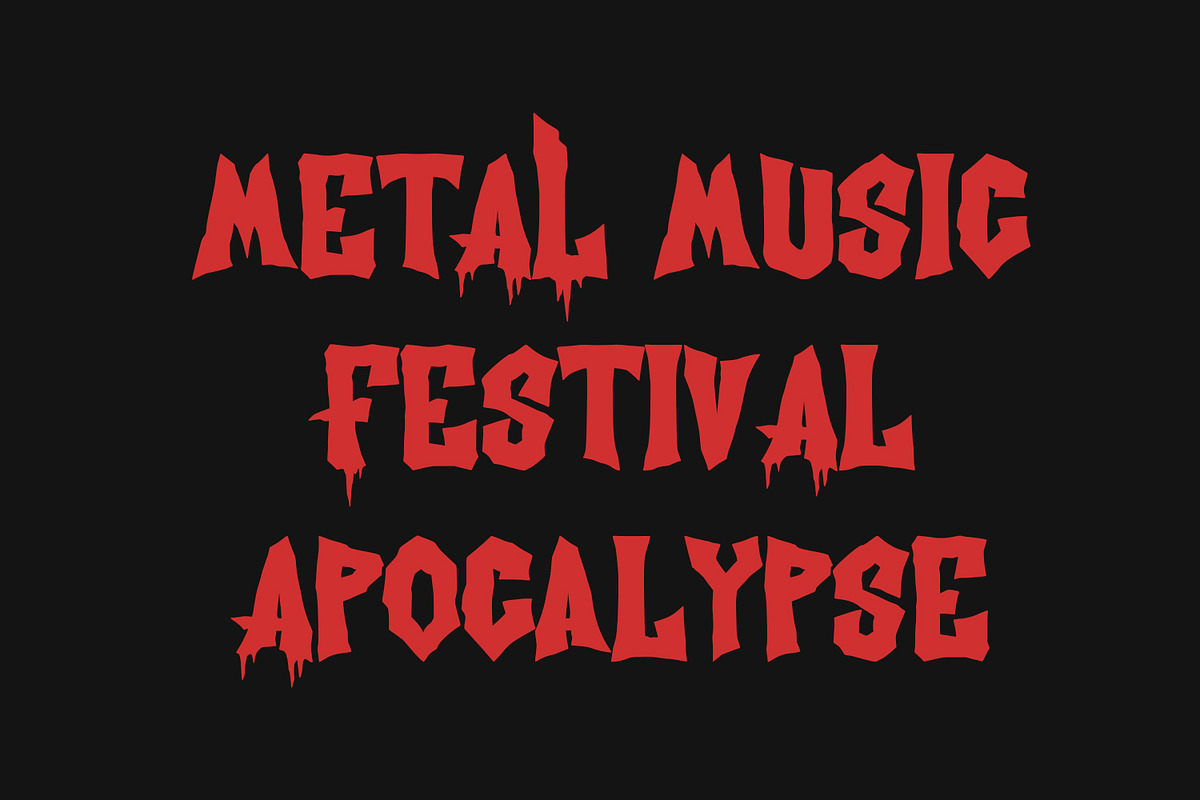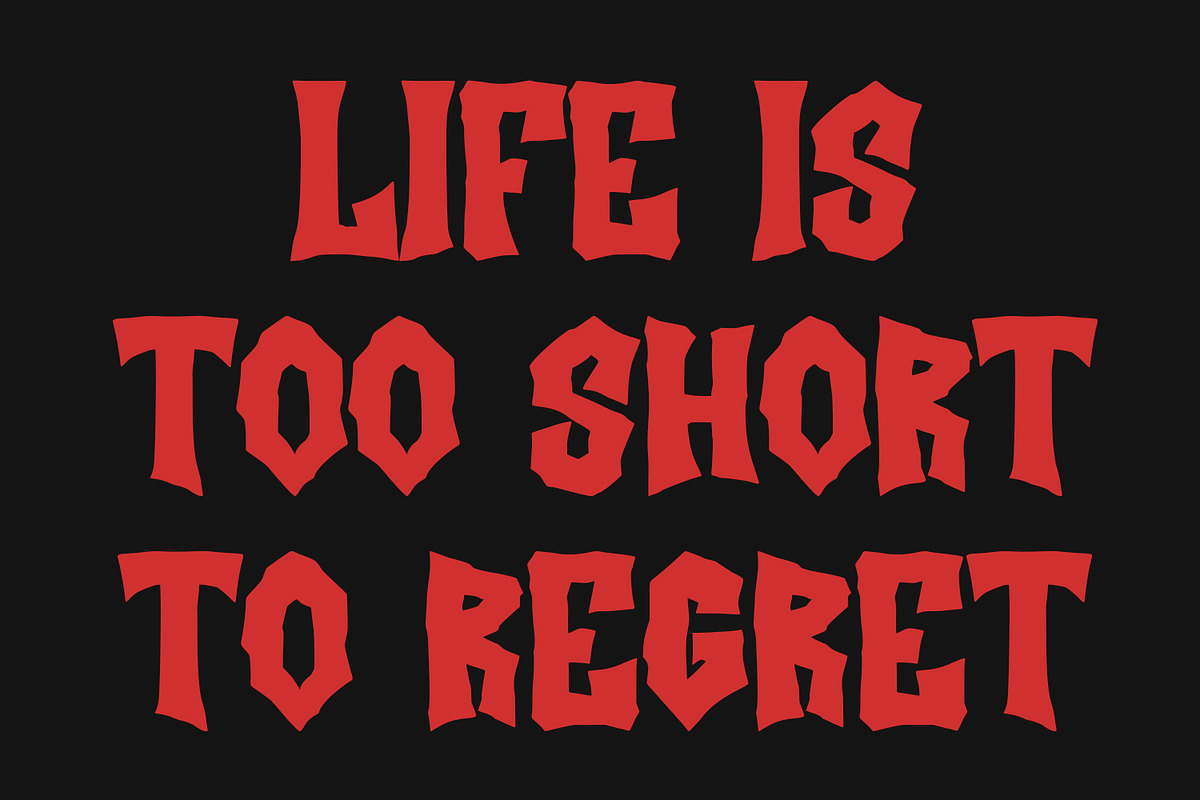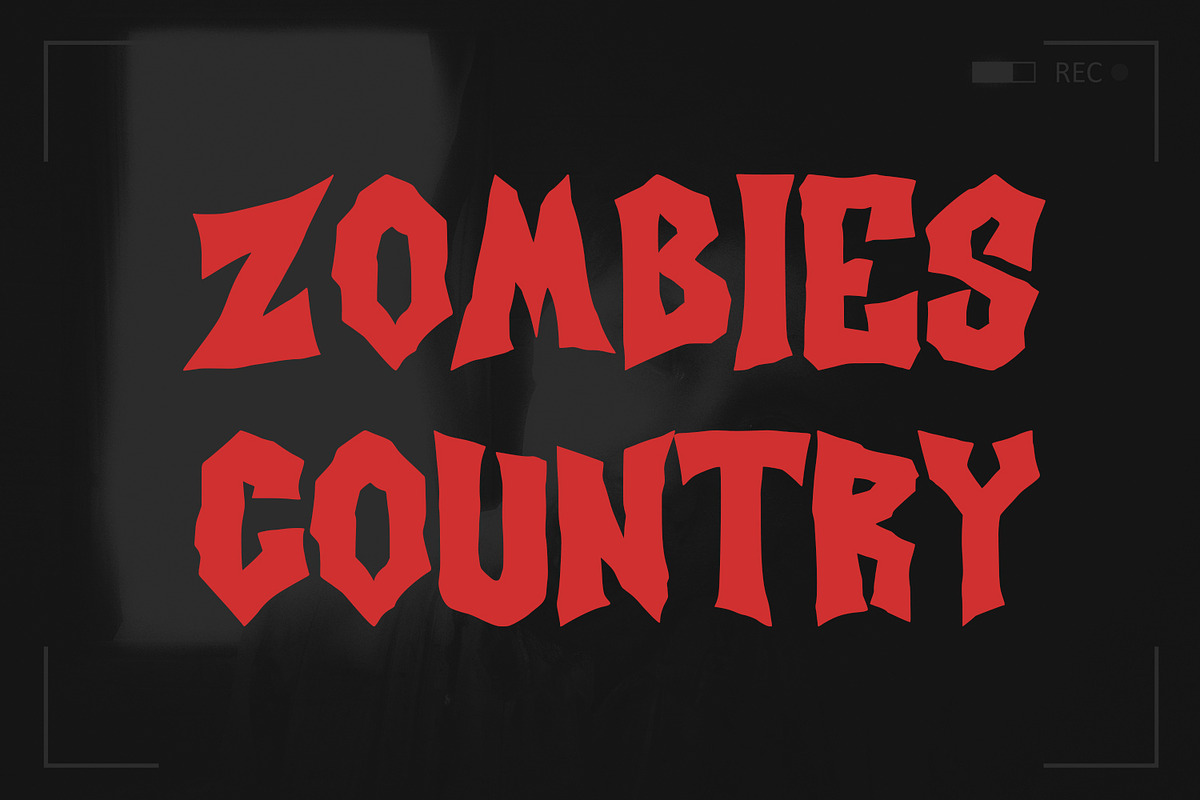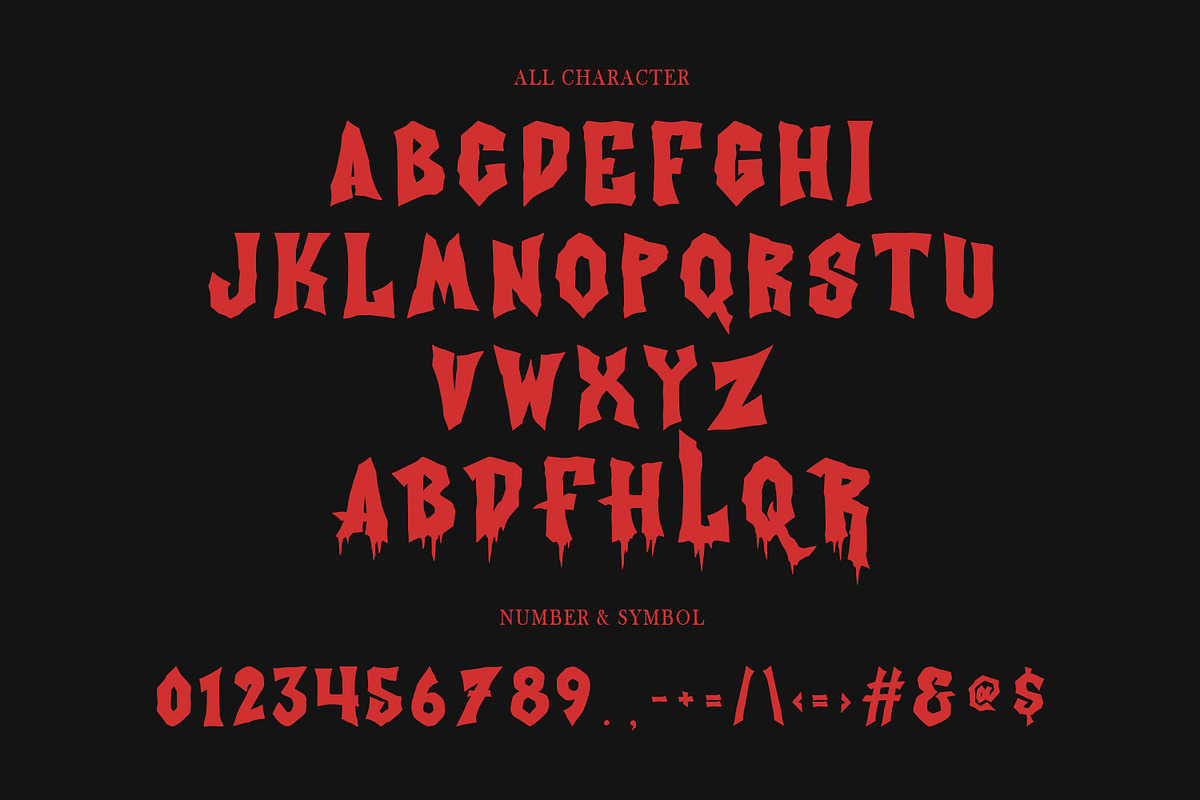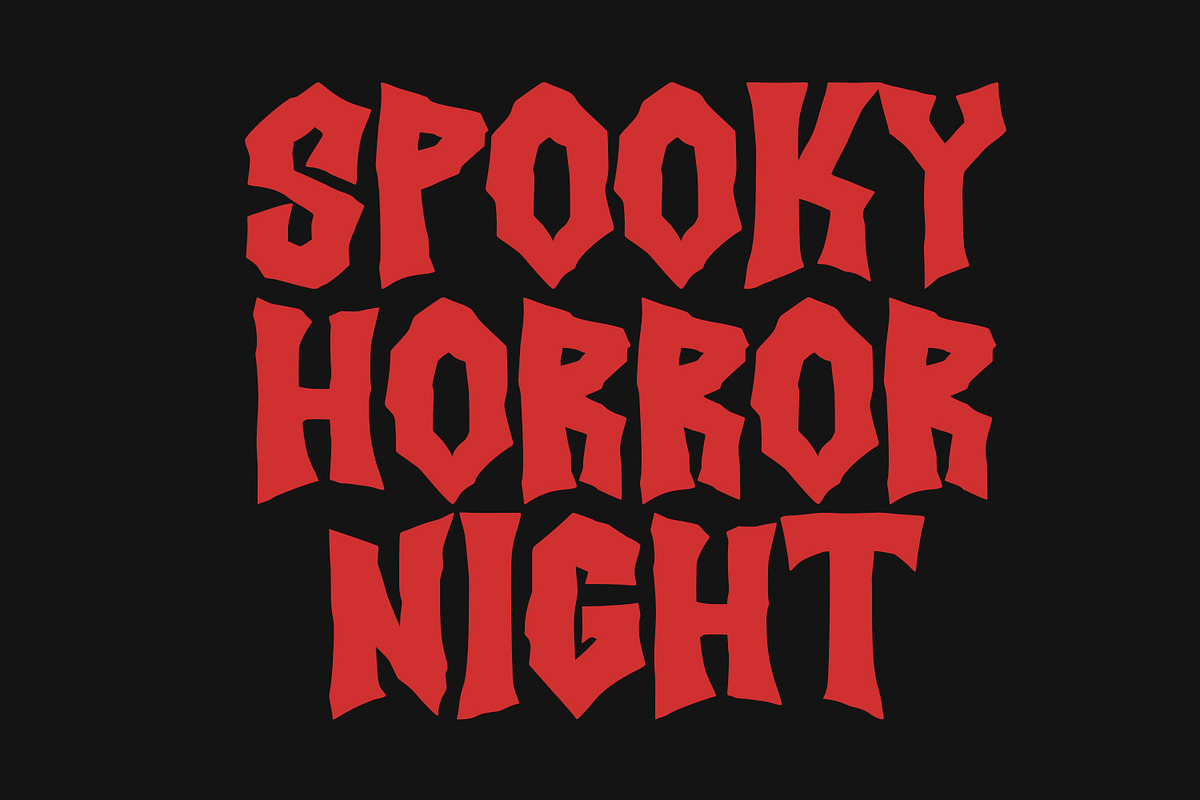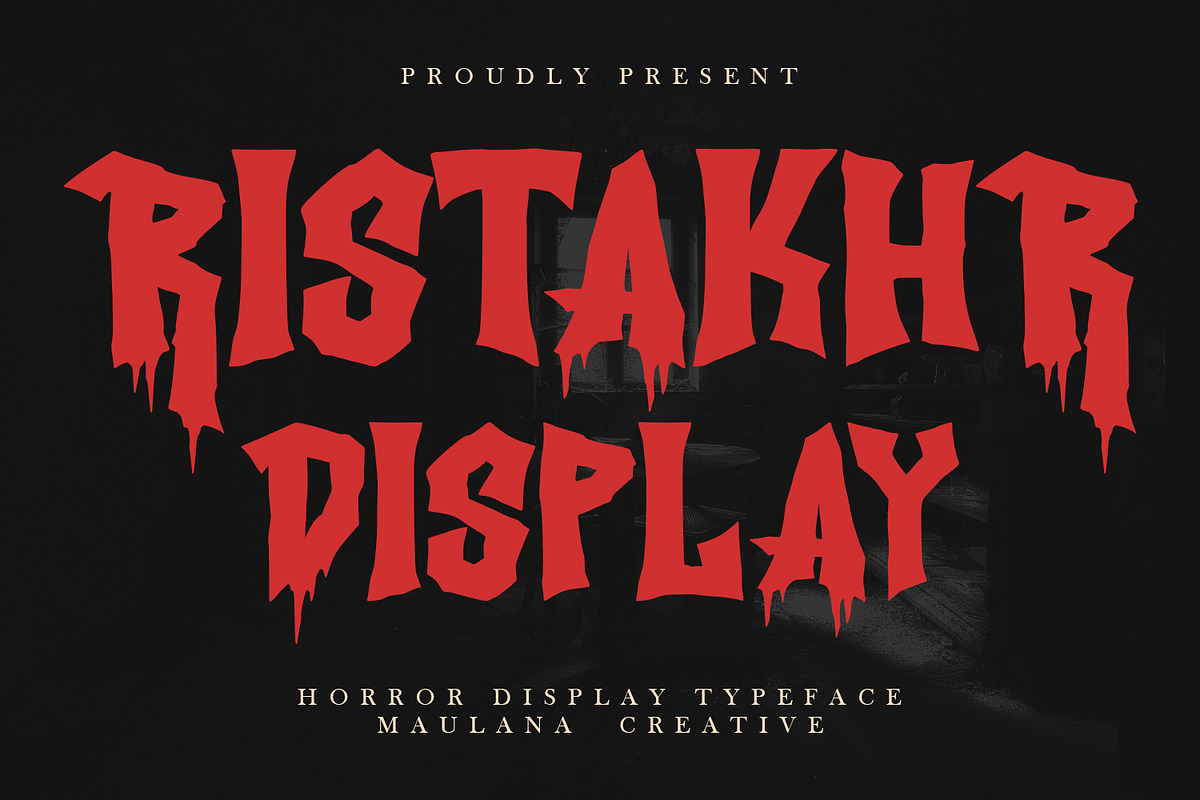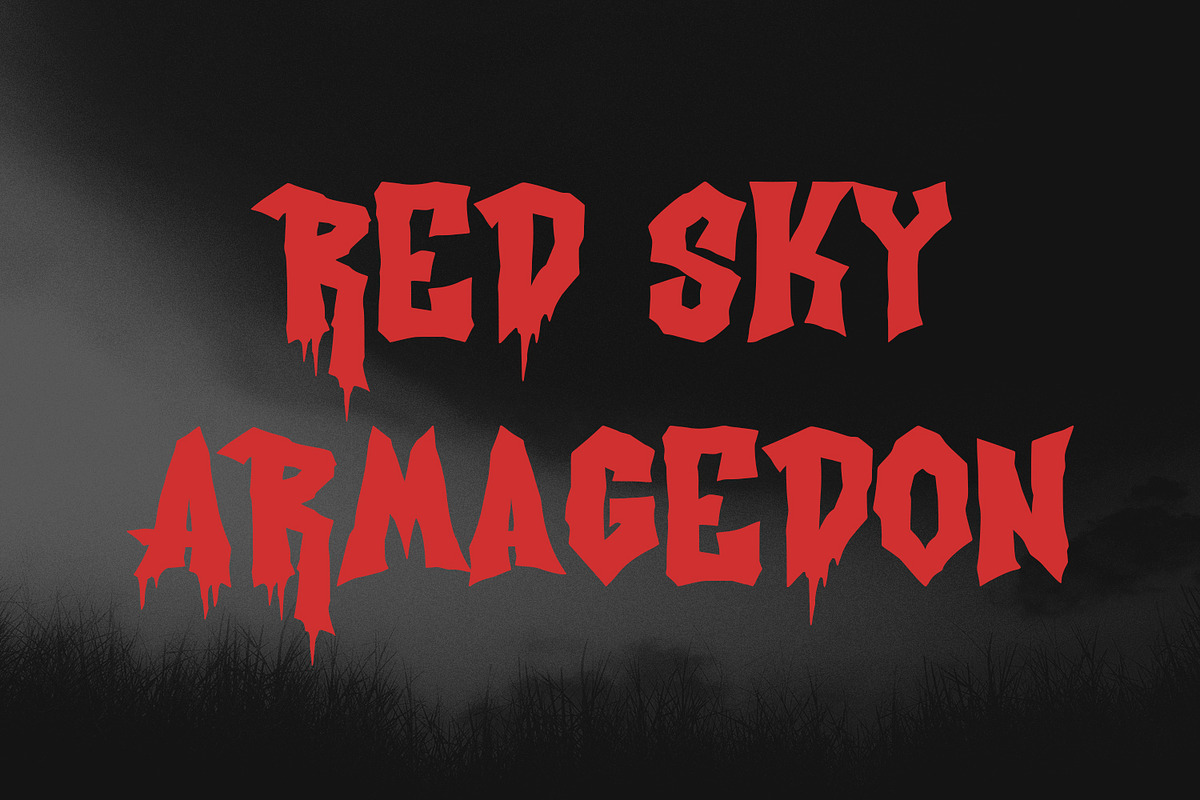
Ristakhr Horror Display Typeface
Ristakhr horror display font. Heavy stroke, fun character with a bit of ligatures. To give you an extra creative work. Ristakhr horror display font support multilingual more than 100+ language. This font is good for logo design, Social media, Movie Titles, Books Titles, a short text even a long text letter and good for your secondary text font with script or serif. Make a stunning work with Ristakhr horror display font.